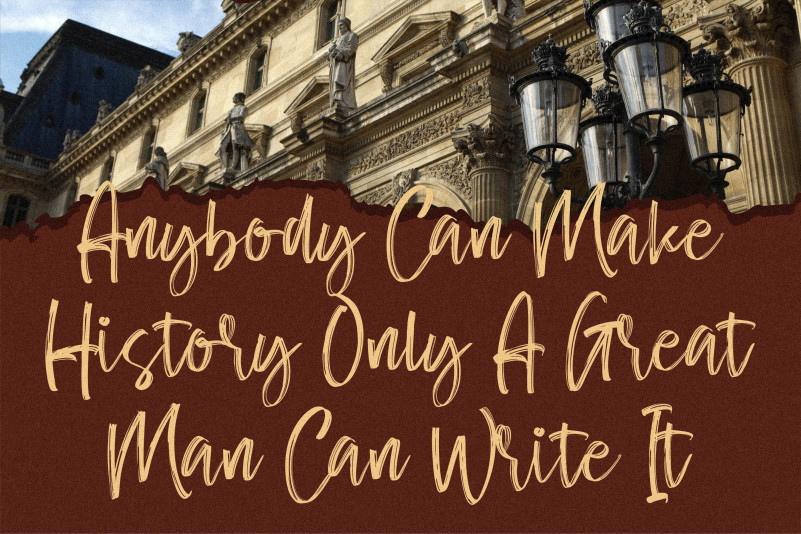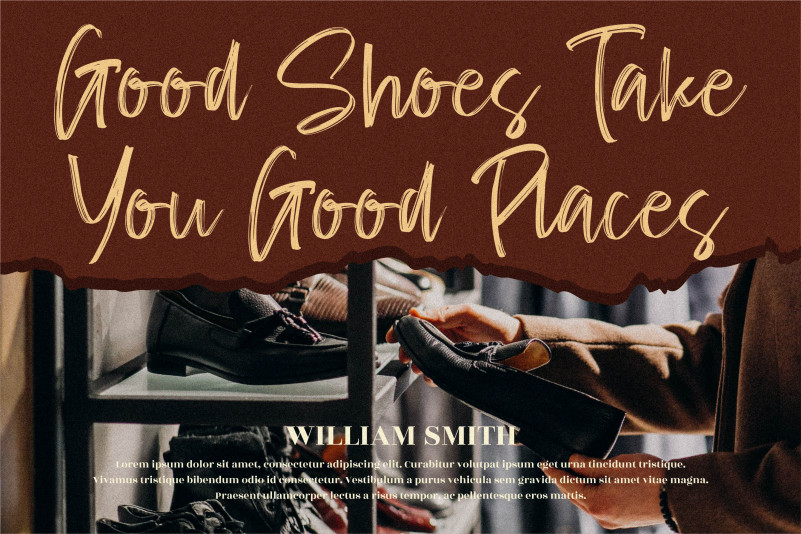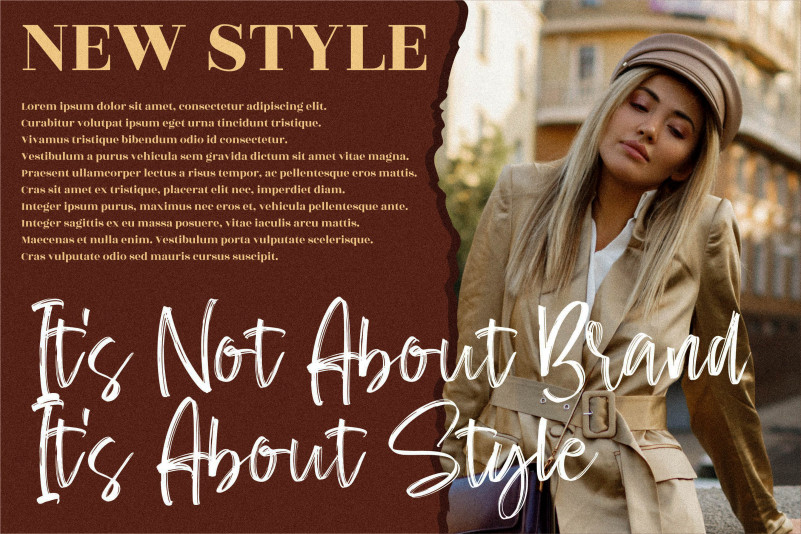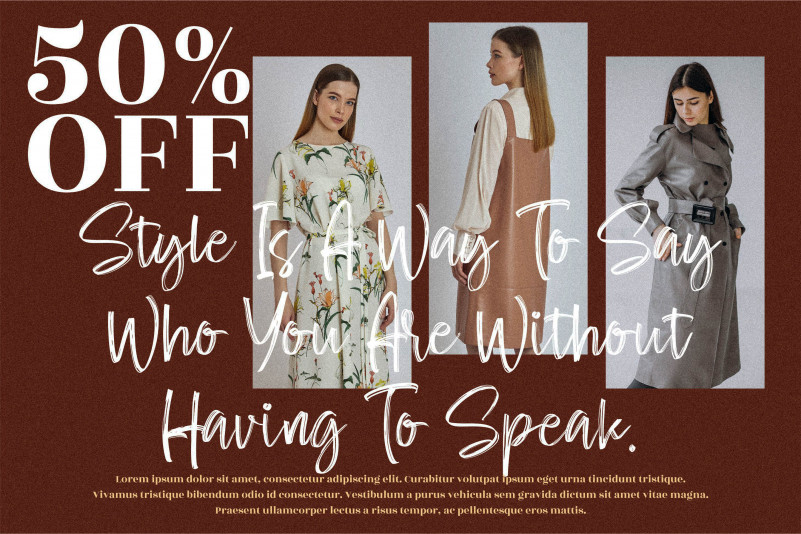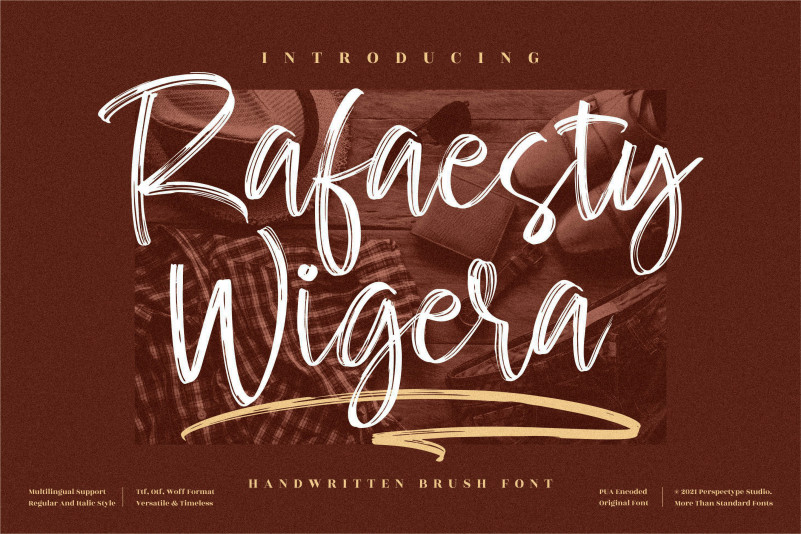
Rafaesty Wigera Font
Rafaesty Wigera Brush Font
This is a lovely brushed script font. It features relaxed and asymmetrical characters and it will be the ideal choice for a variety of design ideas that require a personalized touch.